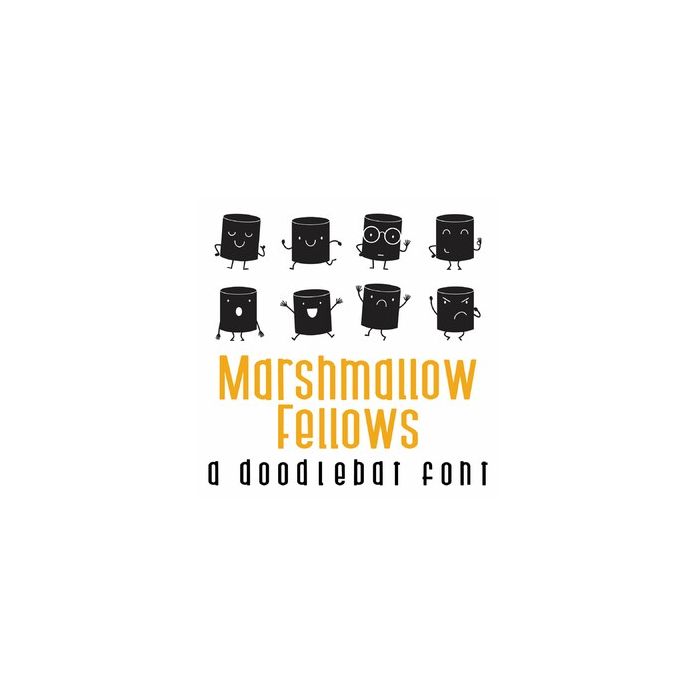
Marshmallow Fellows Doodlebat Font
This fun doodlebat font features 26 adorable marshmallow emojis. Perfect for cards, gifts, decor, crafts, scrap book pages, planner stickers and more!